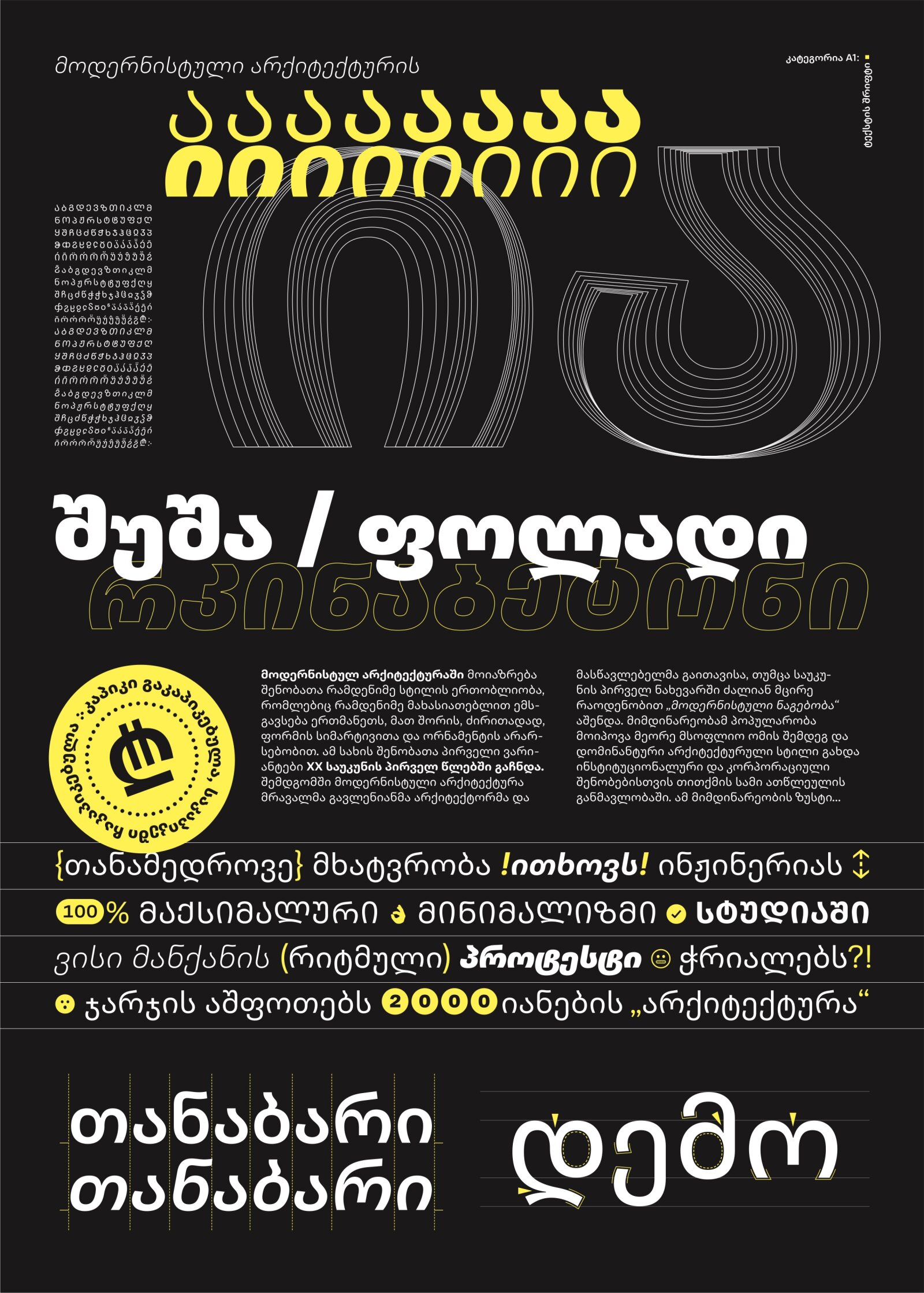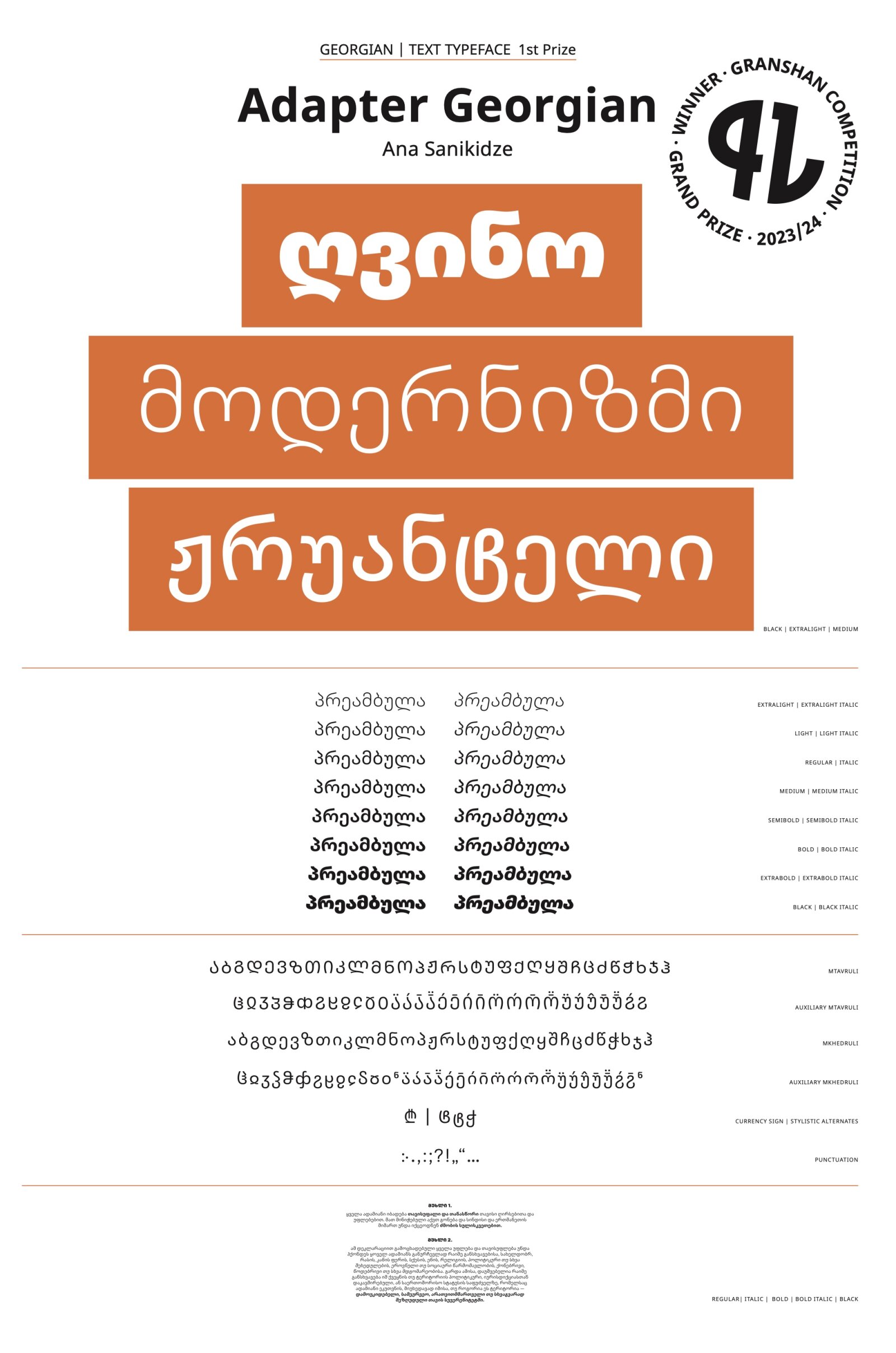
GRAND PRIZE
Adapter Georgian
by Ana Sanikidze
Georgian
Adapter Georgian is an adaptation derived from an existing multiscript text type family, with a specific emphasis on ergonomics, even rhythm, and enhanced readability. Noteworthy features, such as accentuated elements, generous spacing, overall openness, and slightly squared counters, are meticulously crafted to excel at lower resolutions, prioritizing a gratifying reading experience. With Georgian-specific proportions, the typeface features extended ascenders and descenders, complemented by strategically placed ink traps, ensuring a seamless blend with other scripts in the type family. Tailored for extended reading in both print and digital mediums, this Georgian text typeface is adept at tackling contemporary challenges in Georgian typography. lowercase Mkhedruli letters and capital Mtavruli forms. Beyond serving the Georgian language, these fonts provide support for other Kartvelian languages, including Laz, Mingrelian, and Svan.